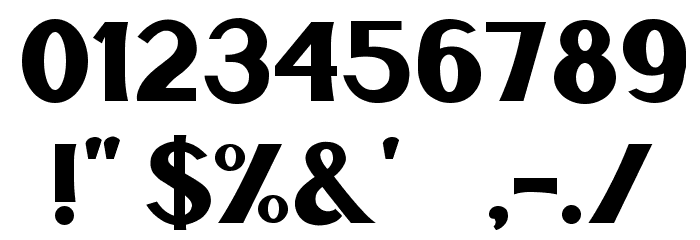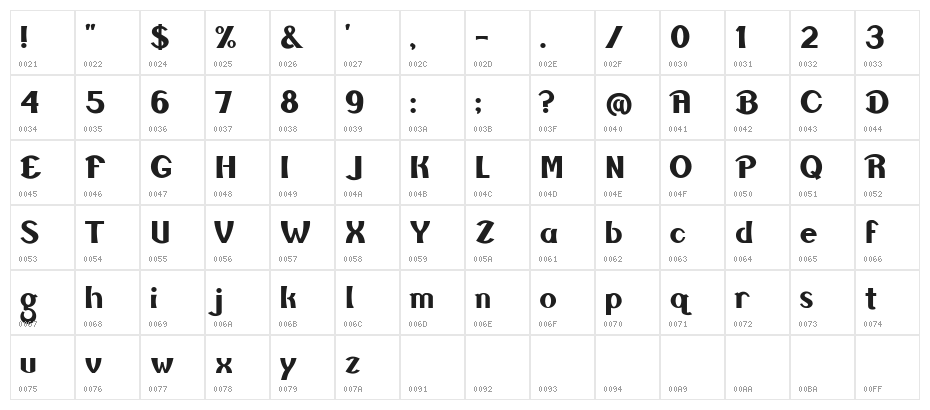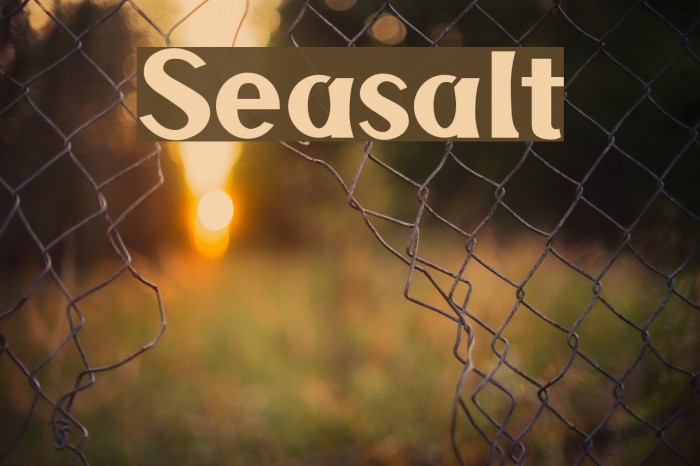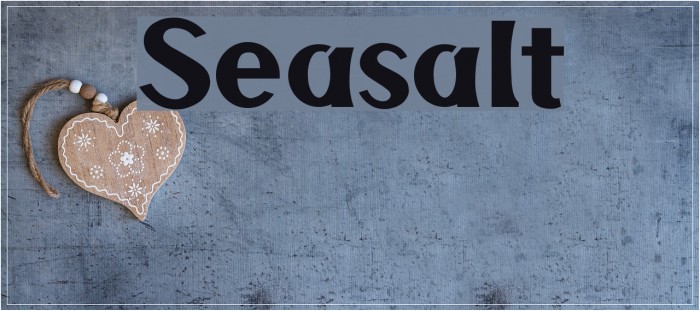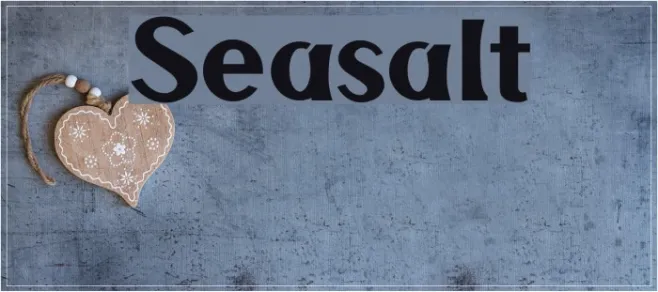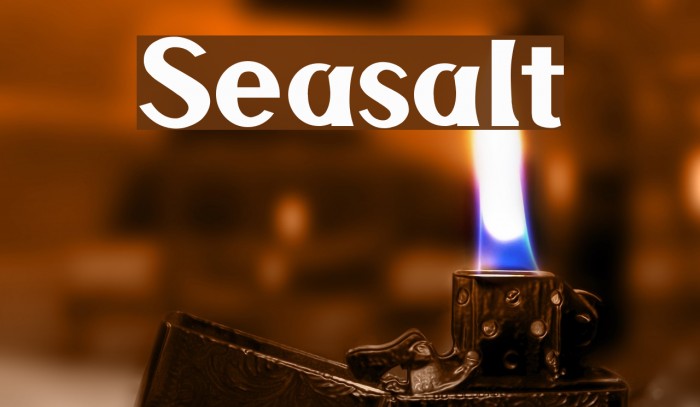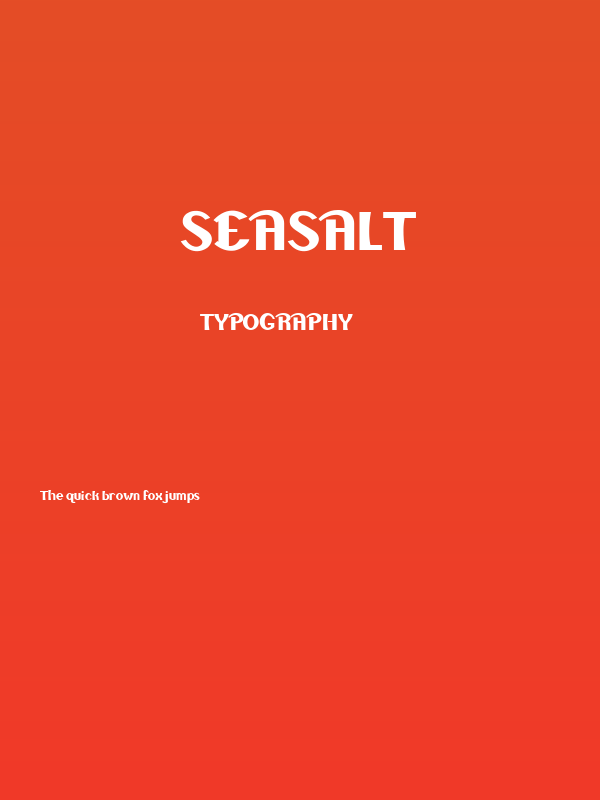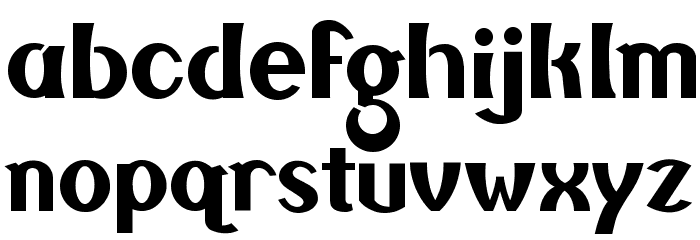
Seasalt Font
Seasalt Description
This font features a bold and dynamic style with a distinctive flair. The uppercase letters are characterized by strong, angular lines and unique cutouts, giving them a modern and artistic appearance. The lowercase letters maintain a consistent boldness, with rounded edges that add a touch of softness to the overall design. The numerals are equally bold, ensuring readability and impact. Special characters are designed with the same boldness and creativity, making them stand out. This font is ideal for projects that require a strong visual presence and a touch of creativity.
| Proposed Projects | Ideal for branding, poster design, and creative headlines. |